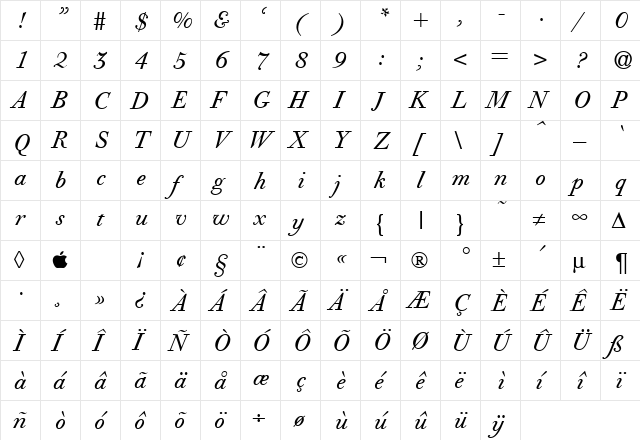
Giambattista RegularItalic
Design Context for Giambattista Typeface
Giambattista offers clean, dependable letterforms without strong stylistic allegiance, making it a practical choice for designers who need flexibility. The slanted form adds forward momentum and visual energy.
Pro Tip: Try Giambattista for annotation and caption copy alongside an upright companion — the contrast in angle creates a dynamic but ordered typographic system.